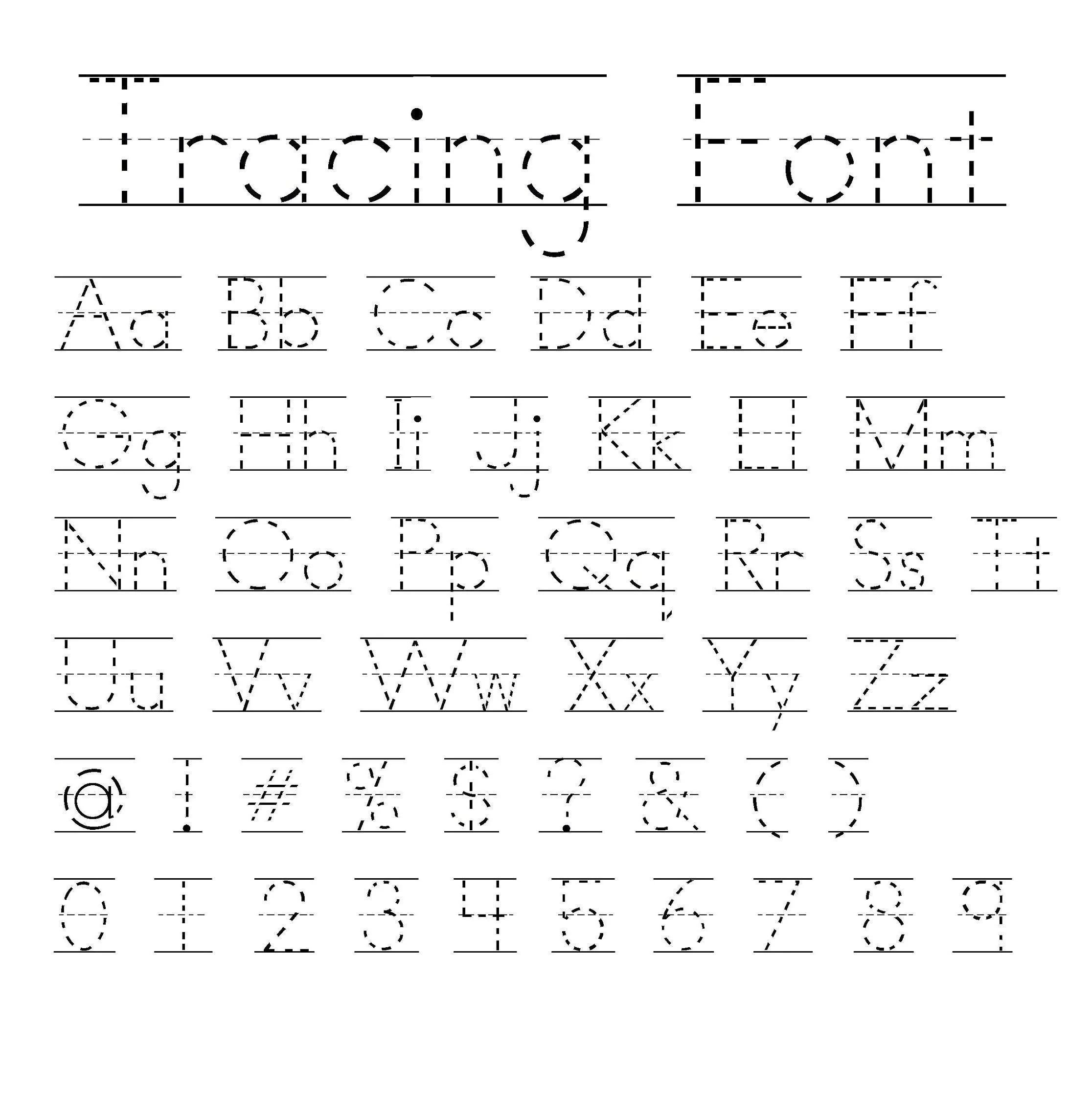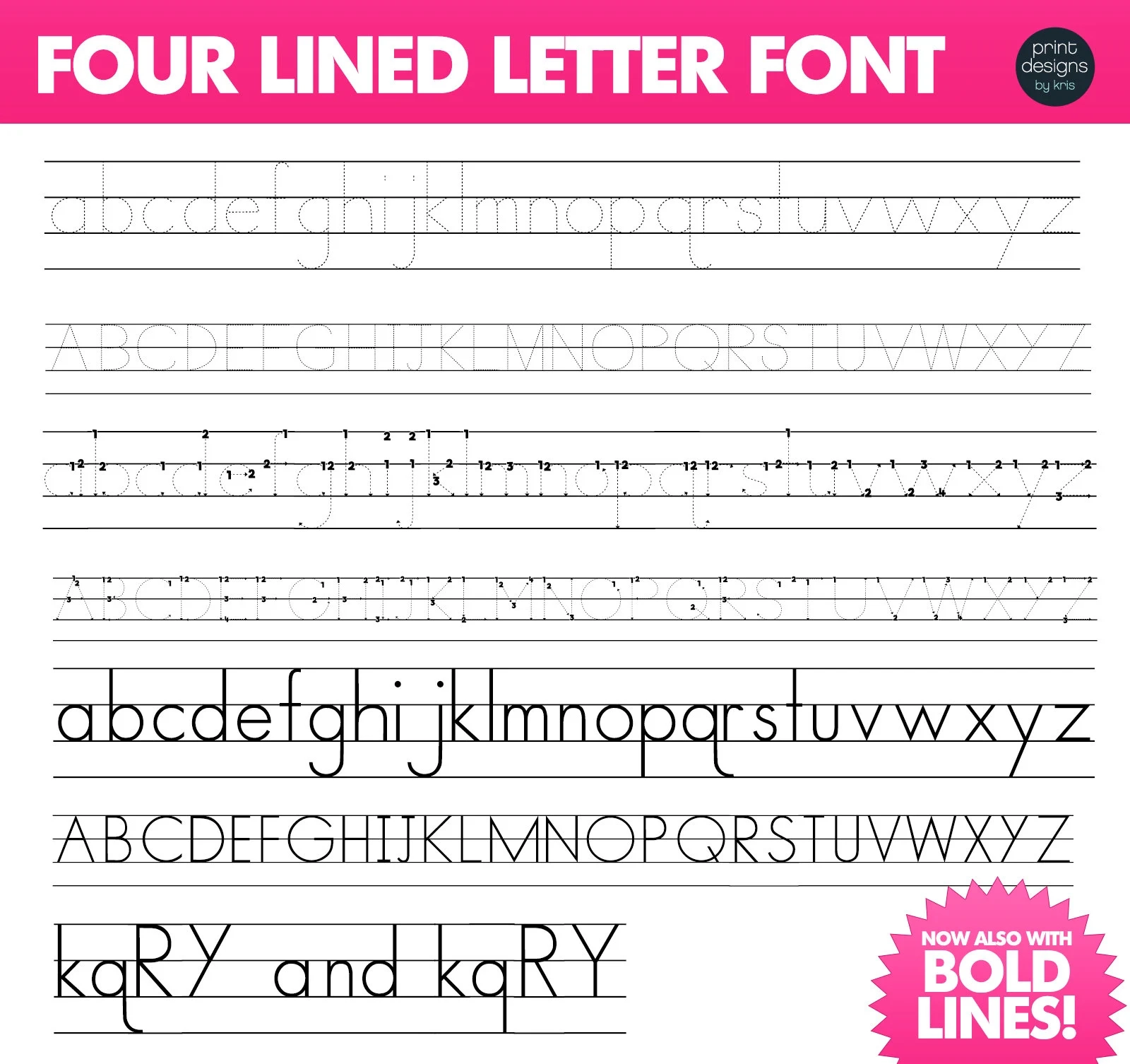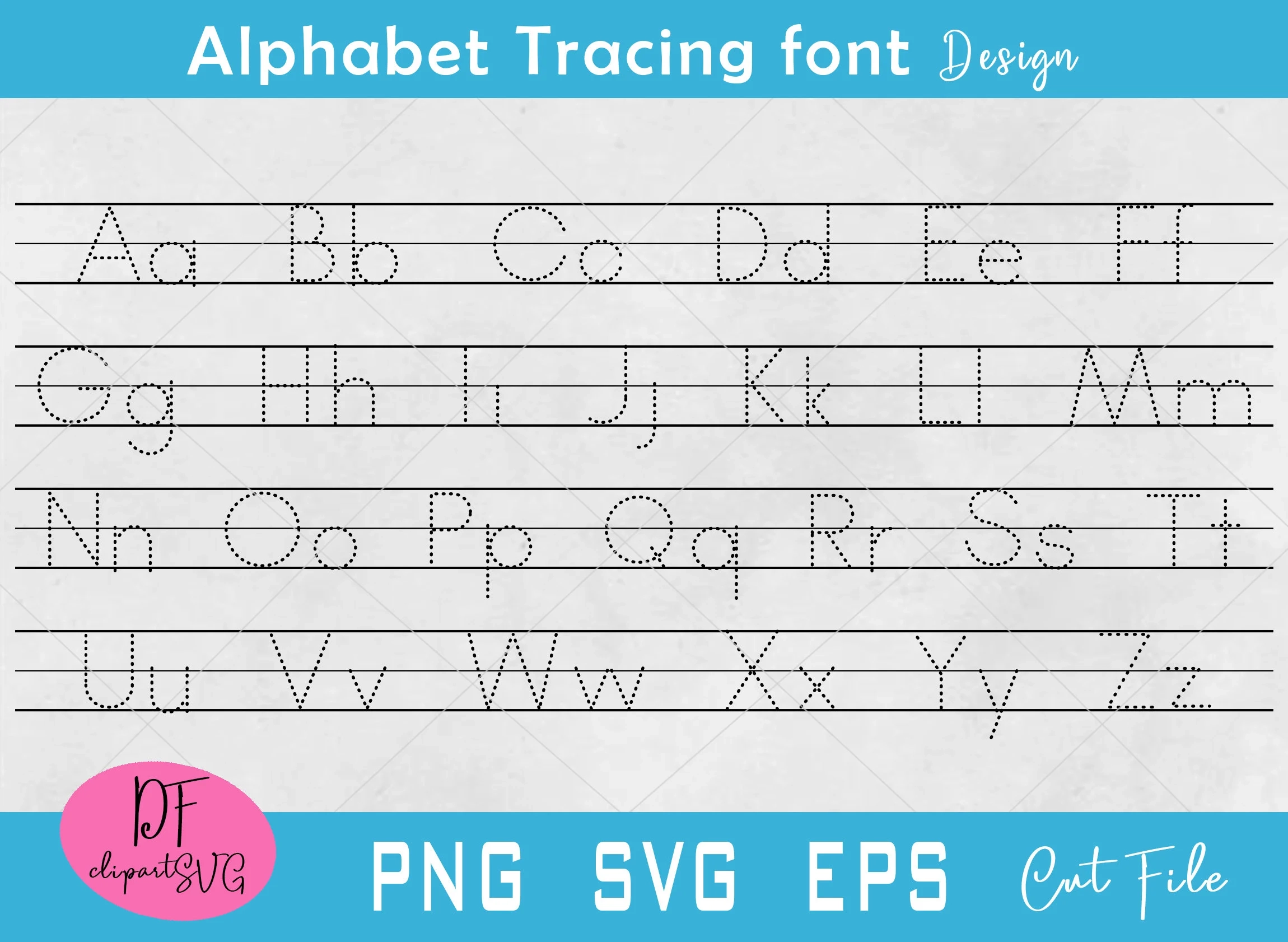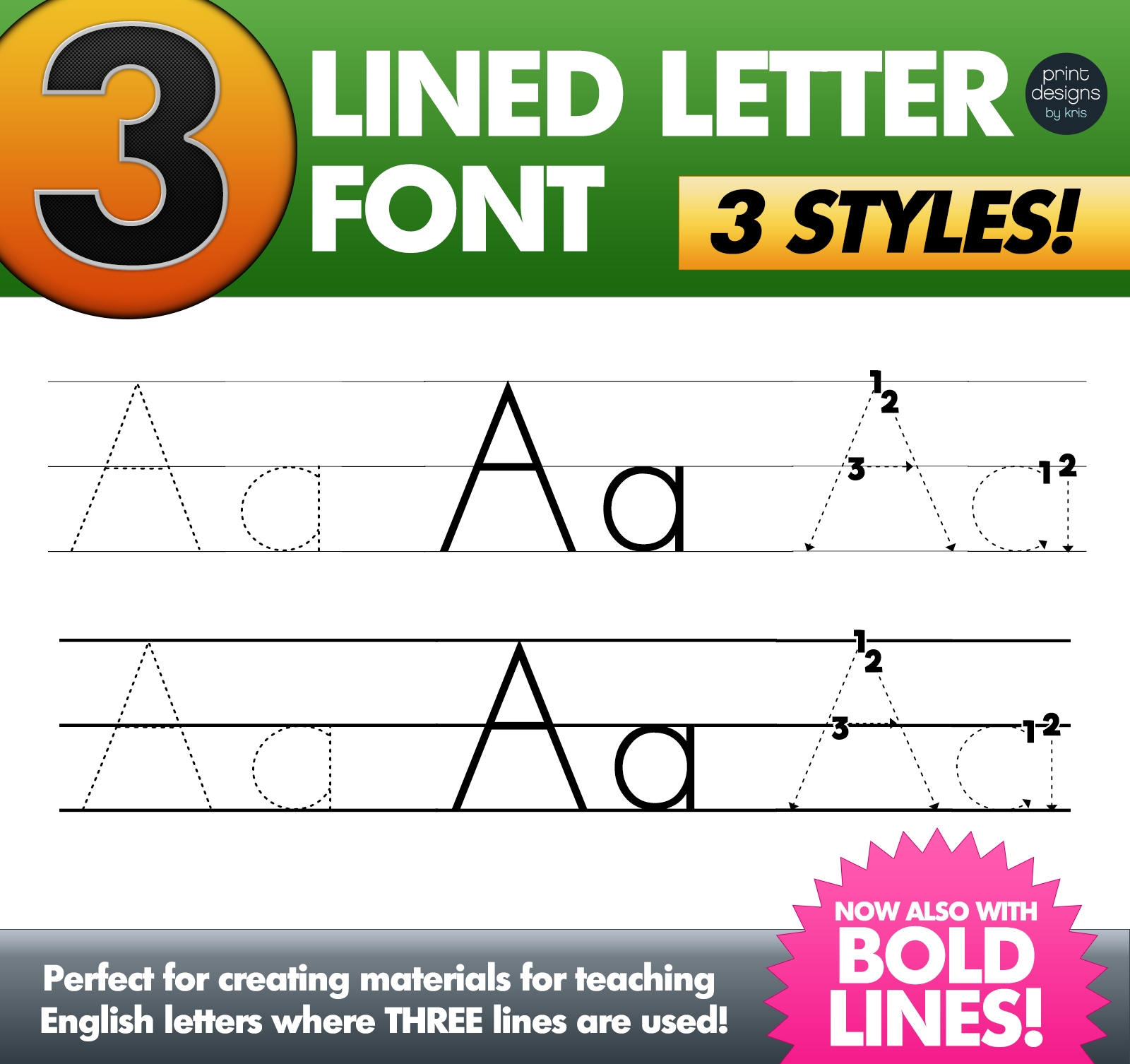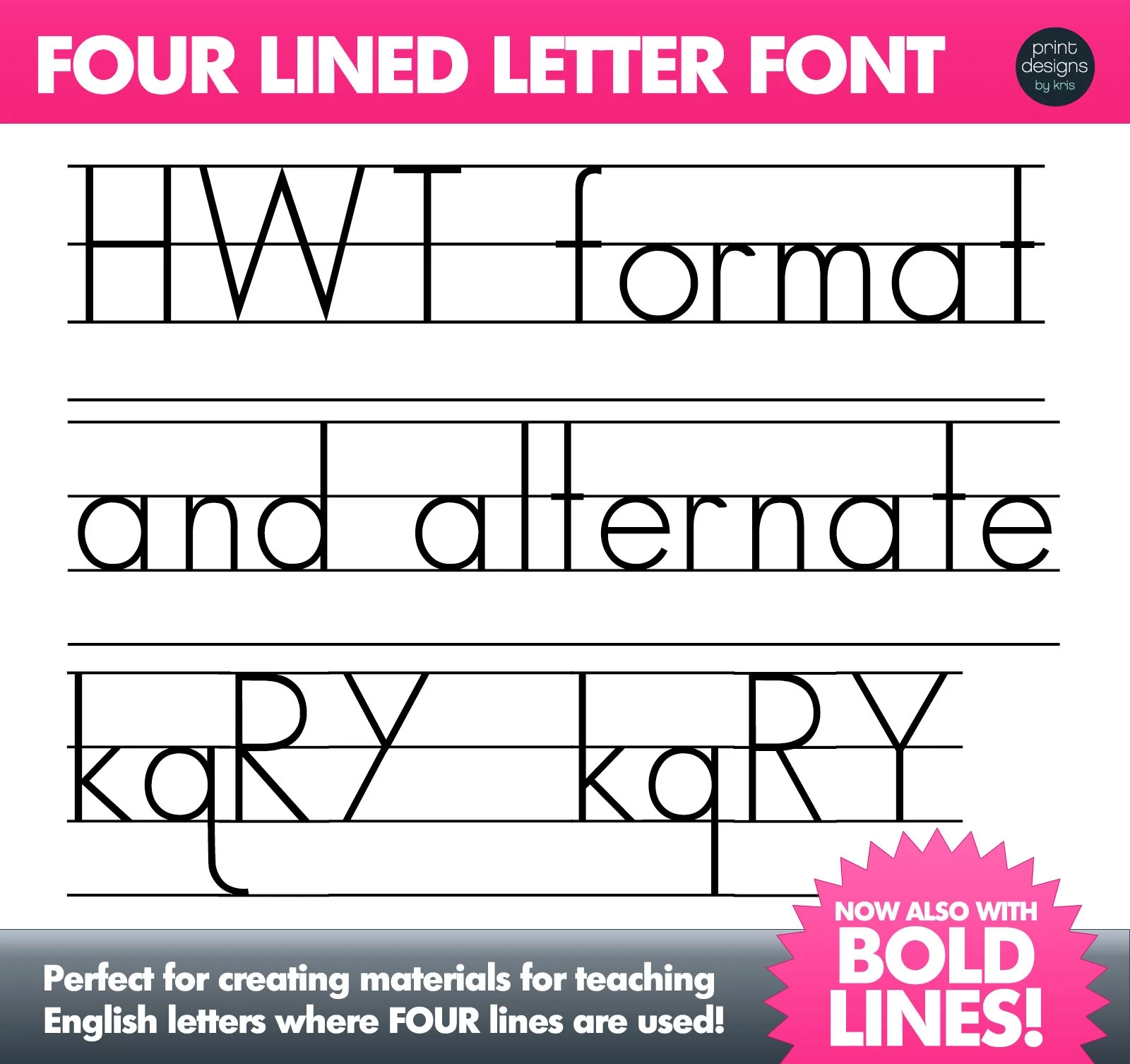
Tracing Font With Lines
Tracing fonts with lines can be a fun and creative way to enhance your design projects. Whether you’re a beginner or an experienced designer, this technique can add a unique touch to your work.
When tracing fonts with lines, start by selecting a font that resonates with your style. Use tracing paper or digital tools to outline the letters, ensuring you capture the details accurately.
Experiment with different line weights and styles to create depth and interest. Adding variations in thickness can make your traced font stand out and give it a more dynamic appearance.
Don’t hesitate to incorporate colors or textures into your traced designs. This can elevate your artwork and make it more visually appealing, attracting attention to your creative projects.
Tracing fonts with lines is not just about replication; it’s about making something uniquely yours. Enjoy the process, and let your creativity flow as you explore this artistic technique!